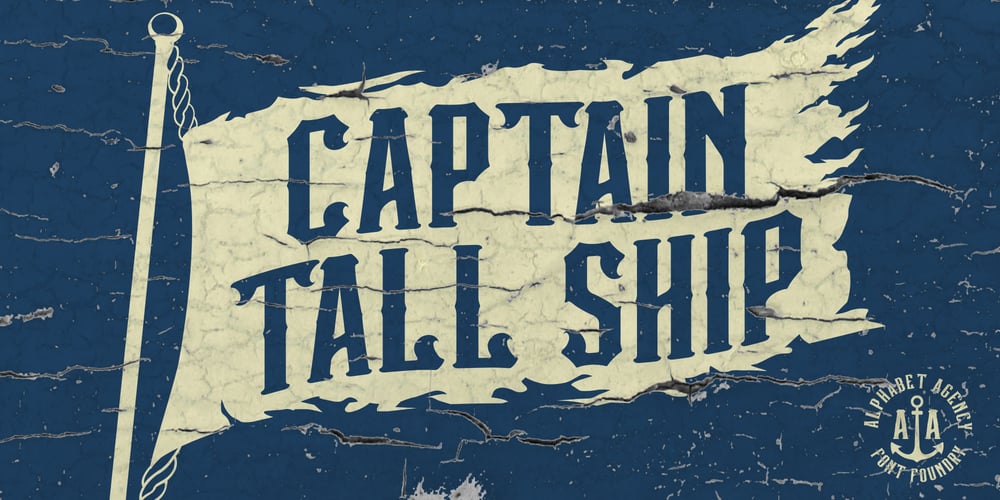
Captain Tall Ship Font Family was designed by Swinn Jonathan and published by Alphabet Agency. Captain Tall Ship contains 1 styles and family package options. Captain Tall Ship is the clean version of Captain Tall Shipwreck. The font can be used in many project themes, from birthday party invitations to beer labels.The font could be potentially used is a number of design themes including bars, pubs, pirate, navy, seafarer, alcohol products, western/cowboy, card game/gambling, biker gang, tattoos, emblems and crests, old military & hunting to name a few.